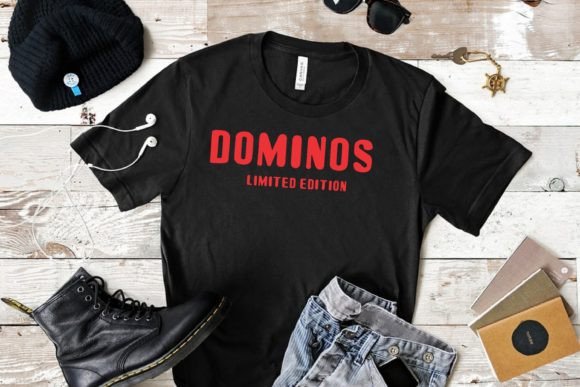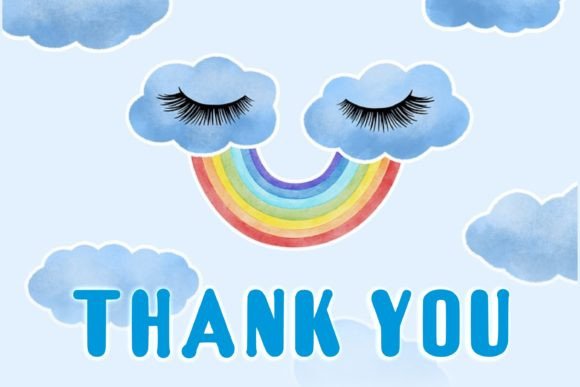
Introduction to Dominos Font
Do you remember the moment when you’re working on a creative project, and you just can’t seem to find the right font to bring your vision to life? The blank space stares back at you, taunting you with its emptiness, until suddenly, you stumble upon the perfect match. For designers, that moment is pure magic, and it’s what makes all the late nights and early mornings worth it.
That’s exactly what the Dominos Font offers – a touch of magic to your designs. This fun and unique all-caps display font is a design resource that will add a fancy touch to any creation, whether it’s related to game systems, cartoons, children’s games, or just any project that needs a bit of whimsy.
Key Features of Dominos Font
- High-quality font design suitable for creative projects and design resources
- Transparency option with a transparent background, ideal for graphic design and digital art
- Perfect for use in logos, branding, and other visual identity projects
- Designed to be versatile and adaptable for use in a variety of creative projects
- Includes a comprehensive character set, including uppercase and lowercase letters, numbers, and punctuation
Honest Review: Dominos Font
I recently stumbled upon the Dominos Font, and I must say, it’s a decent addition to any design resource library. The font is perfect for creative projects that require a unique touch. What works well is the clean and modern aesthetic, making it suitable for a variety of applications.
- ✨ High-quality design: The font’s smooth lines and subtle curves give it a professional look.
- ✨ Versatility: Dominos Font can be used for both digital and print materials, from logos to brochures.
However, there are some limitations to consider. The font is not available in many languages, which might be a concern for projects requiring multilingual support.
- ⚠️ Limited language support: Currently, the font only supports English and a few other languages.
- ⚠️ No transparent background option: The font is a solid design, which might not be ideal for projects requiring a transparent background.
The Dominos Font is suitable for a variety of projects, including branding, advertising, and editorial design. Its modern and sleek design makes it perfect for creating eye-catching graphics and promotional materials.